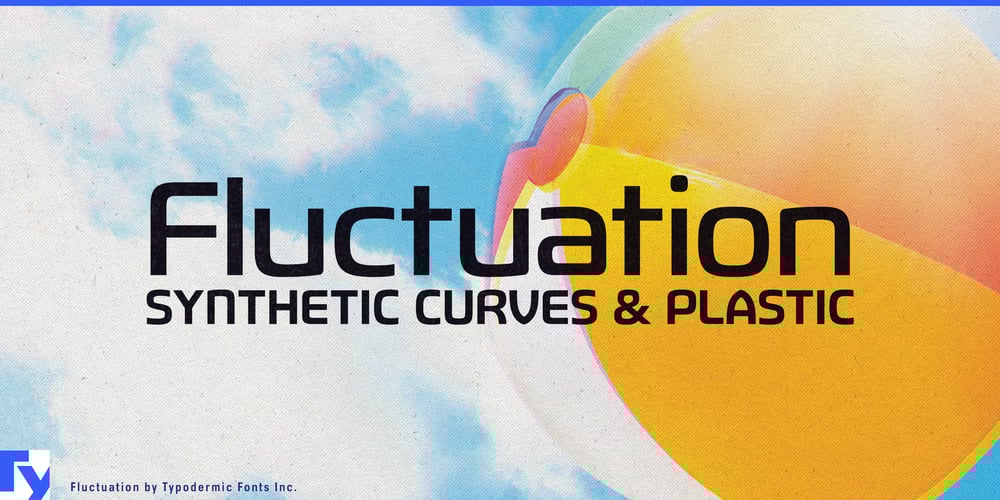
Fluctuation
Fluctuation font
Fluctuation Font Family was designed by Ray Larabie and published by Typodermic. Fluctuation contains 12 styles and family package options. Meet Fluctuation, a sans-serif typeface that seamlessly merges high-tech aesthetics with typographic elegance. Inspired by cutting-edge consumer electronics, every curve and chamfer of Fluctuation has been meticulously crafted to embody modern precision.Its smooth lancet arches and calculated chamfers aren’t just visually striking—they’re functional, maximizing legibility while conserving horizontal space. This makes Fluctuation ideal for responsive websites, compact UIs, and sleek print designs alike. With weights ranging from extra-light to bold, plus italics, Fluctuation offers designers a full spectrum of expressive possibilities. The lighter cuts whisper of refined technology, while the bolder weights command attention in any setting.Fluctuation speaks fluently across borders, supporting a wide array of Latin-based European languages. This linguistic versatility makes it perfect for international tech brands and global corporations seeking a consistent, sophisticated voice. For designers who understand that in technology, form and function are inseparable, Fluctuation is more than a typeface—it’s a statement. It doesn’t just complement your design; it enhances it, adding a layer of technological sophistication to every character.When your project demands a forward-thinking, functional typeface, turn to Fluctuation. It’s not just about choosing a font; it’s about setting the standard for modern, tech-savvy communication. With Fluctuation, you’re not just setting type—you’re defining the future of design.